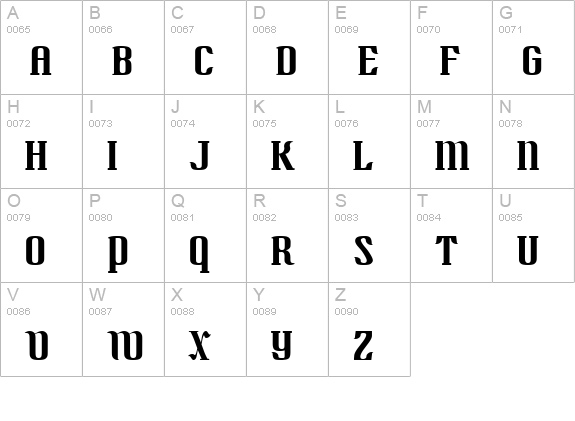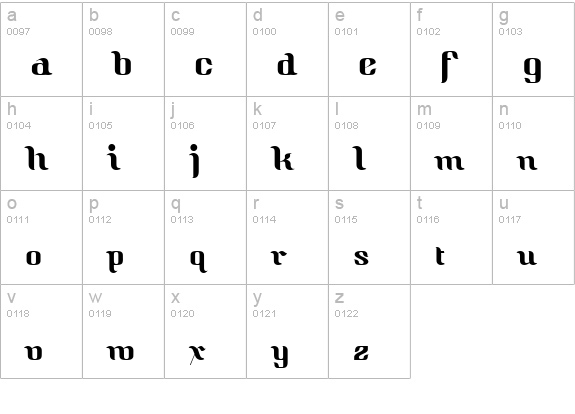
Quidic Roman Font Details
Quidic Roman font is a timeless and elegant typeface that effortlessly combines classic Roman letterforms with a modern twist. Its clean lines and refined curves make it ideal for a wide range of design projects, from branding and logo design to editorial layouts and web designs. This font exudes a sense of sophistication and professionalism, making it perfect for creating a polished and stylish impression. Whether you want to convey a sense of tradition or a contemporary look, Quidic Roman font has the versatility to adapt to any creative vision. One of the most appealing aspects of Quidic Roman font is that it is freely available to download at FontsMarket.com. You can effortlessly enhance your projects with this beautiful typeface without any cost. This font offers incredible value by providing a high-quality and professionally designed typeface at no expense. The Quidic Roman font boasts excellent legibility, ensuring that your message is conveyed with clarity and impact. Its well-balanced letterforms and generous spacing contribute to an effortless reading experience across various mediums, whether it's in print or on-screen. The versatility of Quidic Roman font extends to its extensive character set, which includes punctuation marks, numerals, and a wide range of special characters. This comprehensive range of glyphs enables you to express your creativity and add a personal touch to your designs. In addition to its aesthetic appeal and practicality, Quidic Roman font also offers exceptional technical performance. Its well-optimized outlines ensure smooth rendering and a seamless user experience across different devices and platforms. Overall, Quidic Roman font is a remarkable typeface that combines timeless elegance with contemporary design elements. Its availability as a free download on FontsMarket.com makes it an excellent choice for designers, students, and anyone looking to add a touch of sophistication to their creative endeavors. Embrace the beauty of Quidic Roman font and elevate your design projects to new heights.